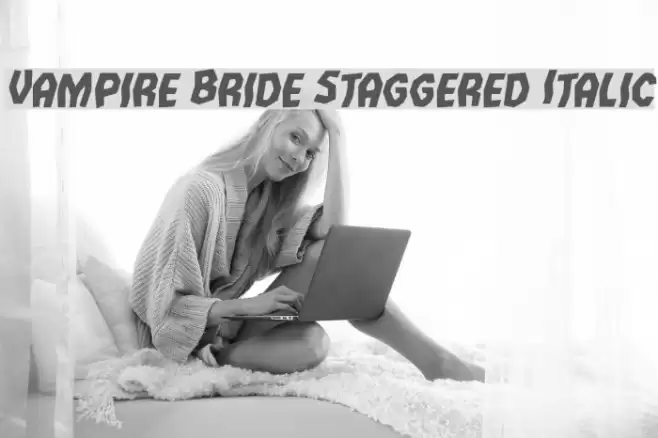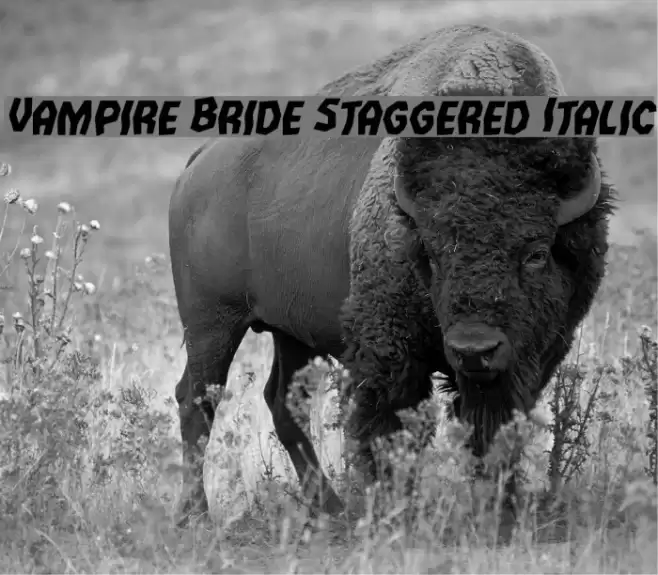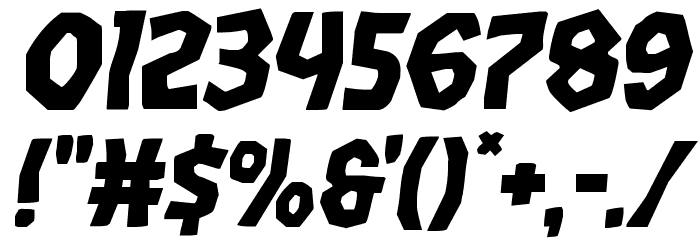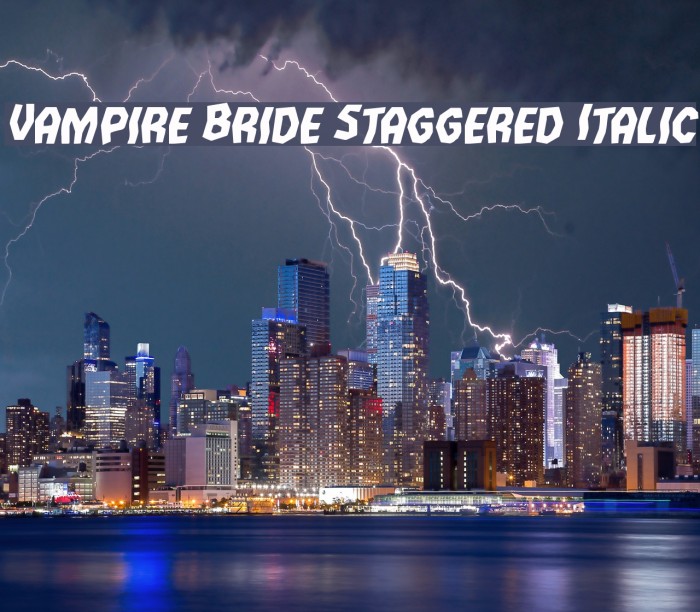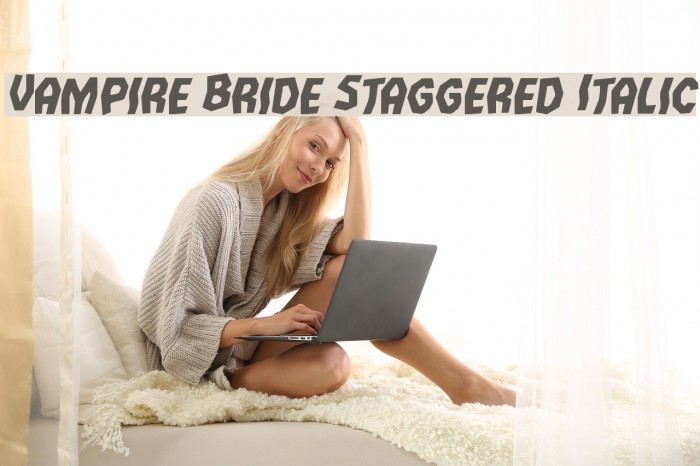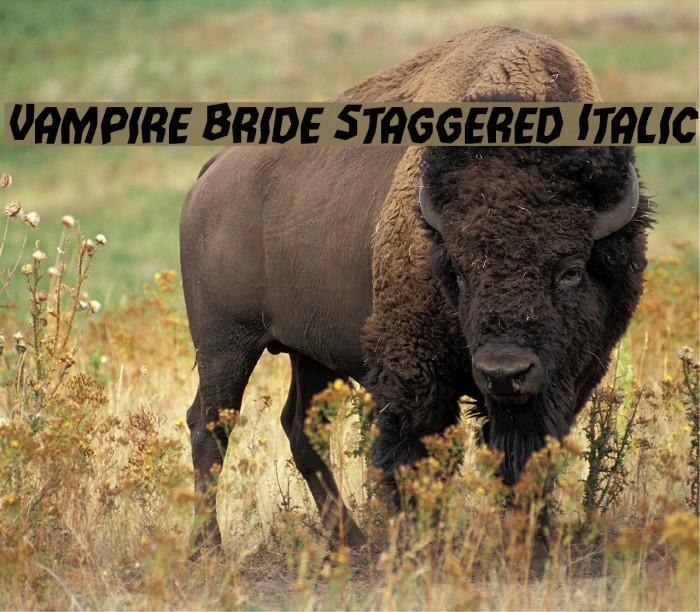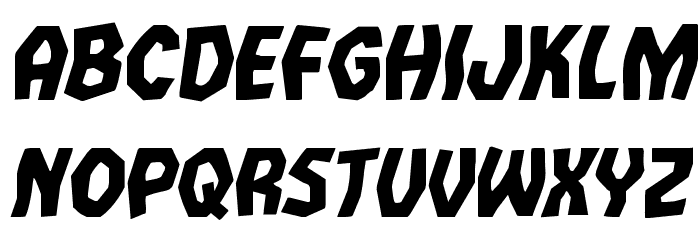
Vampire Bride Staggered Italic Font
Vampire Bride Staggered Italic Description
This font features a bold and staggered design with a distinct italic slant, giving it a dynamic and energetic appearance. The characters are heavily stylized with sharp angles and irregular edges, creating a sense of movement and intensity. The uppercase and lowercase letters maintain a consistent style, with the numbers and special characters following suit. The font's unique aesthetic makes it stand out, ideal for projects that require a strong visual impact. Its boldness and irregularity suggest a sense of urgency and excitement, perfect for creative and unconventional designs.
A bold, staggered, and italic font with sharp angles and dynamic style from Horror fonts.
- Proposed Projects: Ideal for horror-themed posters, Halloween invitations, edgy branding, and creative titles.